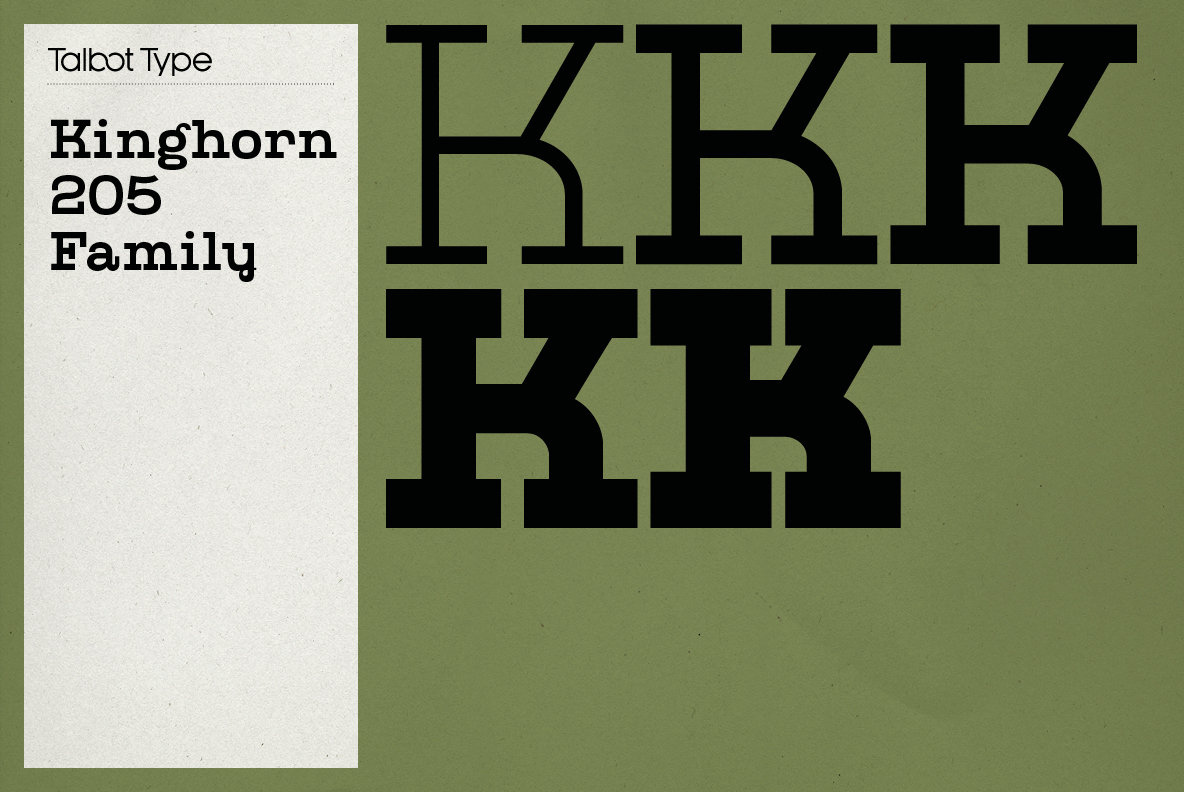
Kinghorn 205 Font
Kinghorn 205 Font is perfect for royal heritage branding, luxury hotel marketing, prestigious legal firm communications, crown jeweler advertising, aristocratic estate marketing, high-end auction house catalogs, exclusive country club materials, and noble family crest designs where regal authority and aristocratic elegance are paramount.
What makes Kinghorn 205 Font so exciting is its majestic ability to convey royal dignity and aristocratic sophistication through noble letterforms that embody the grandeur and ceremonial authority of traditional monarchy while maintaining exceptional readability for prestigious communications. The regal character design reflects the timeless elegance and institutional power that defines authentic royal heritage and aristocratic tradition.
The Kinghorn 205 Font family includes light, regular, medium, bold, and ornamental weights, with royal variants and crown-inspired decorative elements that provide comprehensive tools for creating distinguished noble branding and aristocratic design systems.
The font's stately character architecture and ceremonial proportions create immediate associations with royal ceremonies and aristocratic institutions. Each letterform has been designed to convey the dignity and gravitas that defines authentic royal communication and noble family heritage.
Kinghorn 205 Font excels in creating authoritative luxury communications that inspire reverence and communicate supreme quality. The typeface's royal character makes it ideal for luxury brands, heritage institutions, and exclusive organizations targeting clientele who appreciate aristocratic tradition and royal elegance.
From royal warrant holders to exclusive private clubs, this font brings noble credibility that appeals to audiences seeking authentic aristocratic experiences and royal-quality services. The versatile design maintains its regal character across both traditional ceremonial applications and modern luxury digital platforms.